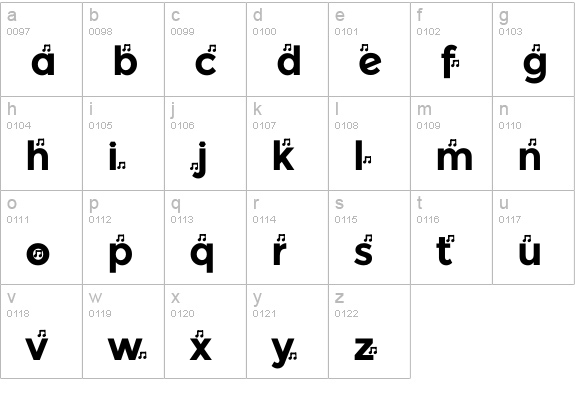
YentNotes Font Details
Introducing YentNotes, a remarkable font that effortlessly captures attention with its elegant and sophisticated design. This font is the perfect choice for those seeking to add a touch of professionalism and style to their projects. With its clean lines and graceful curves, YentNotes exudes a sense of modernity and refinement. What sets YentNotes apart is not only its stunning aesthetics but also its incredible versatility. Whether you're designing a logo, creating a website, or crafting a captivating presentation, this font will effortlessly elevate your work to new heights. Its timeless appeal ensures that it will remain a go-to choice for designers across a multitude of industries. But what truly makes YentNotes stand out is its accessibility. We understand the value of providing high-quality resources at no cost, which is why YentNotes is freely available to download at FontsMarket.com. This means that you can enjoy the benefits of this extraordinary font without any financial constraints. YentNotes is a font that caters to the needs of both professionals and enthusiasts alike. Its legibility and readability make it suitable for a wide range of applications, from print materials to digital platforms. Its extensive character set includes all the essentials, ensuring that you can effortlessly communicate your message with clarity and precision. In addition to its visual appeal, YentNotes also boasts excellent technical performance. It is optimized for both print and screen use, guaranteeing sharp and crisp results on any medium. This font is also compatible with various software applications, making it a seamless addition to your design toolkit. So why settle for mediocrity when you can elevate your designs with YentNotes? Embrace the opportunity to captivate your audience and leave a lasting impression. Download this font for free at FontsMarket.com and unlock a world of endless creative possibilities.